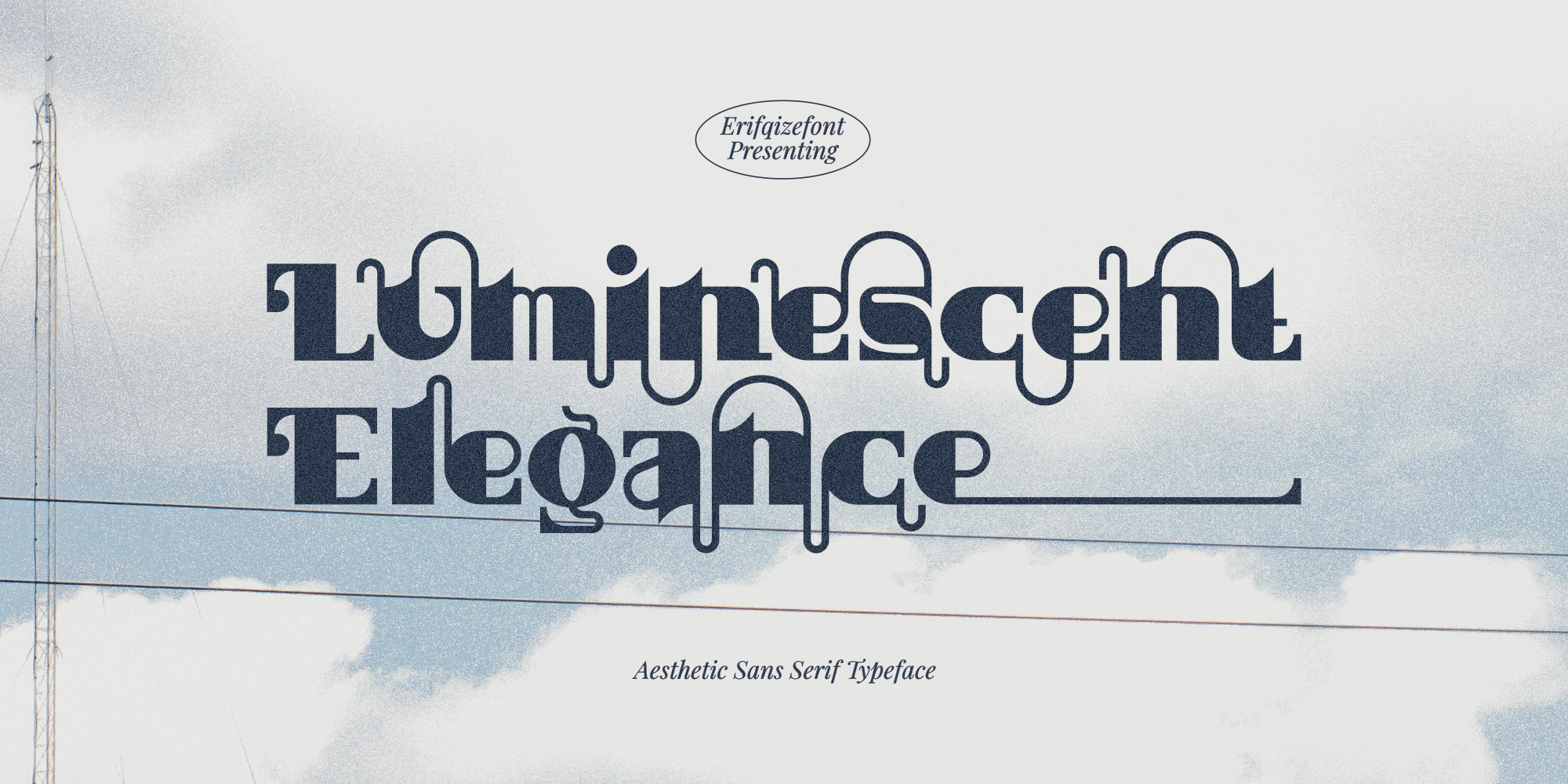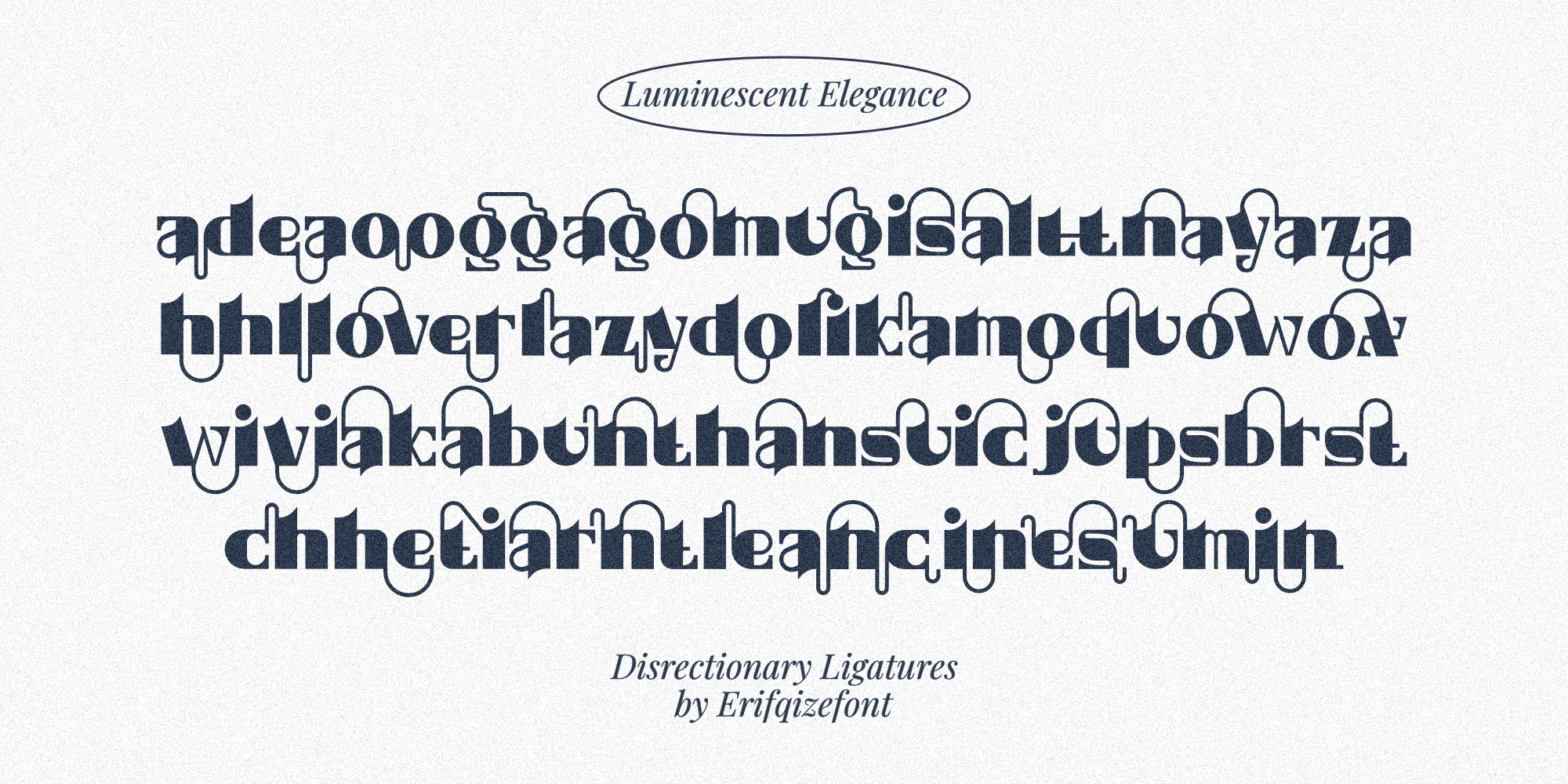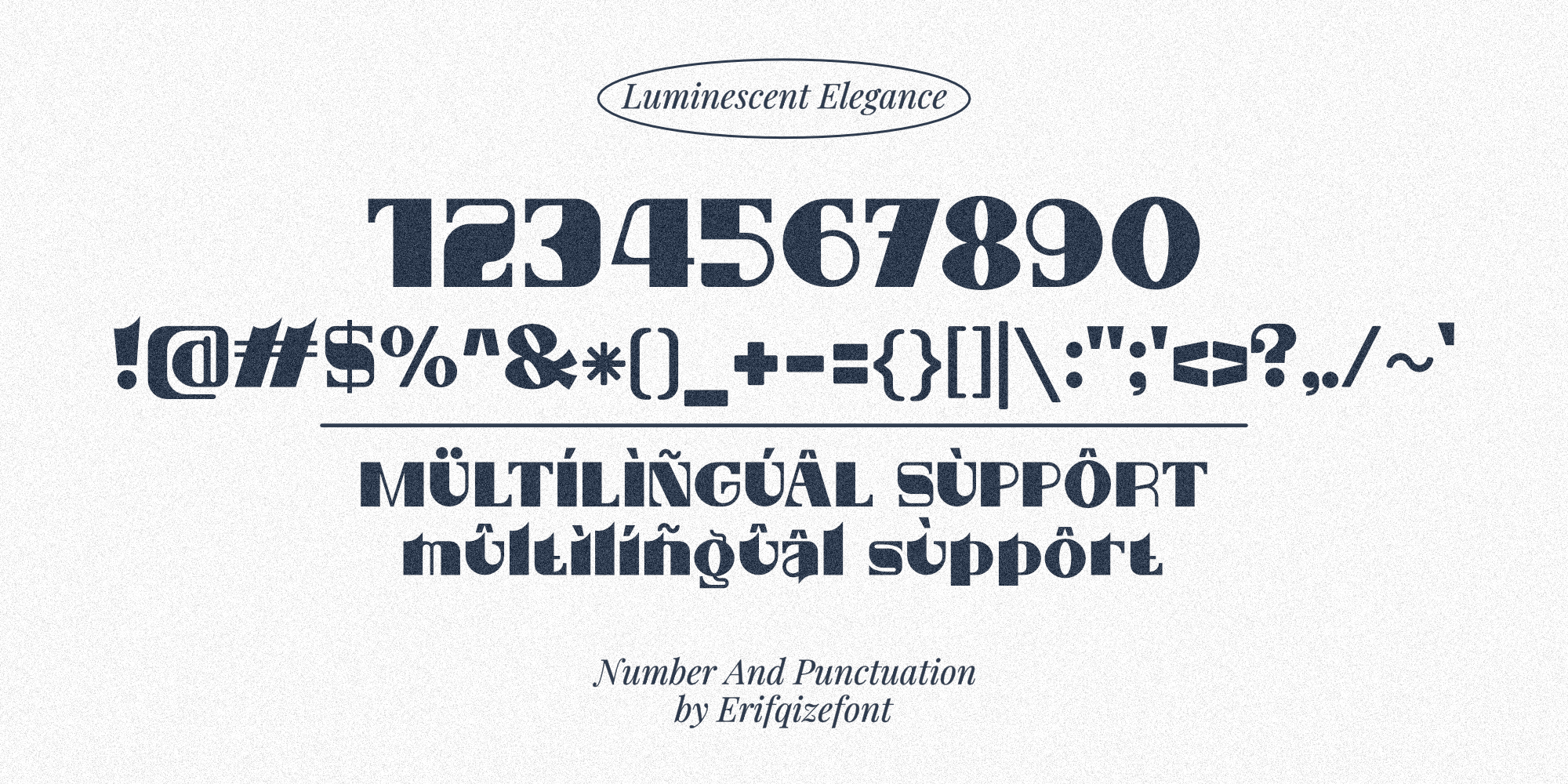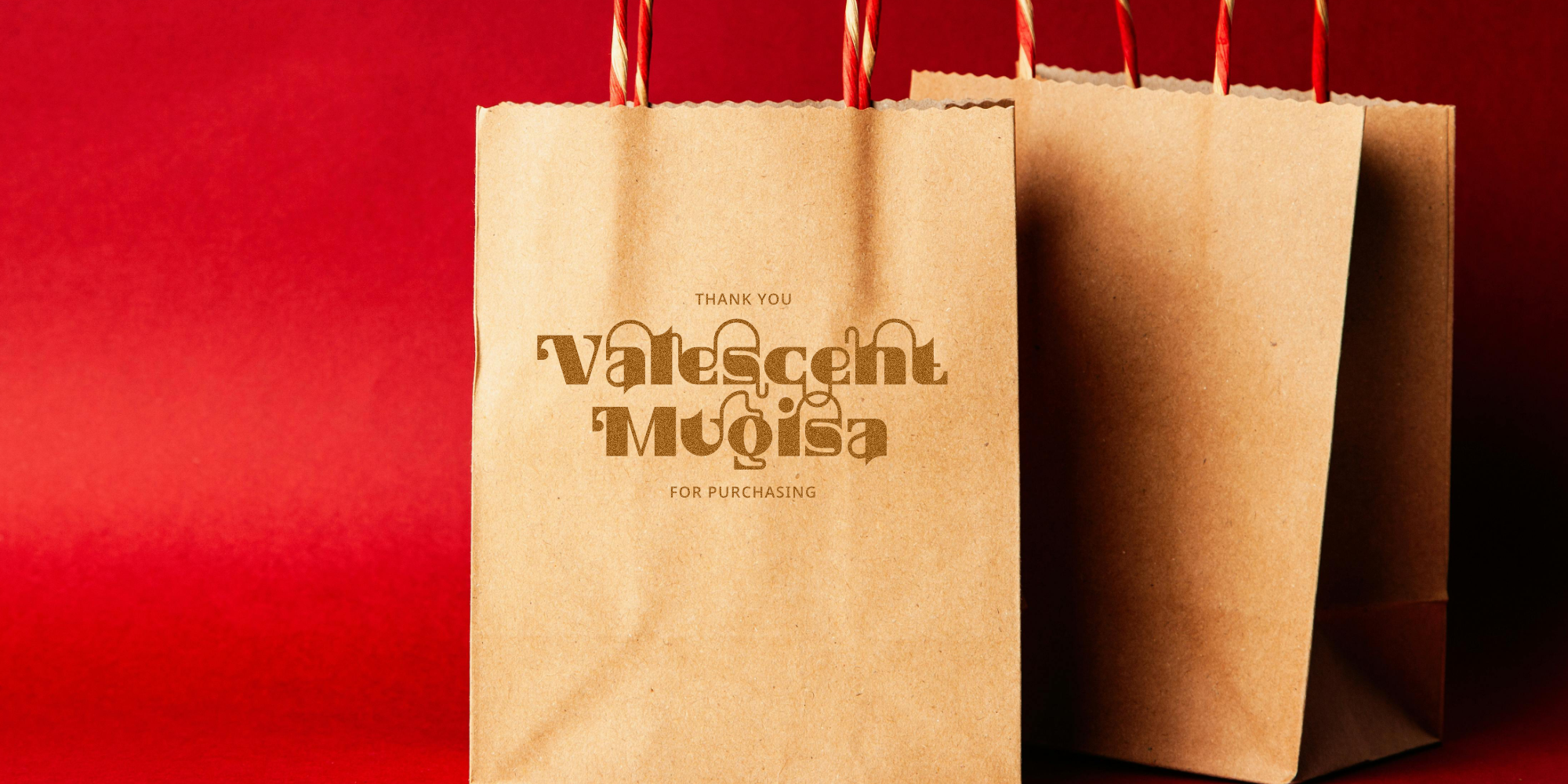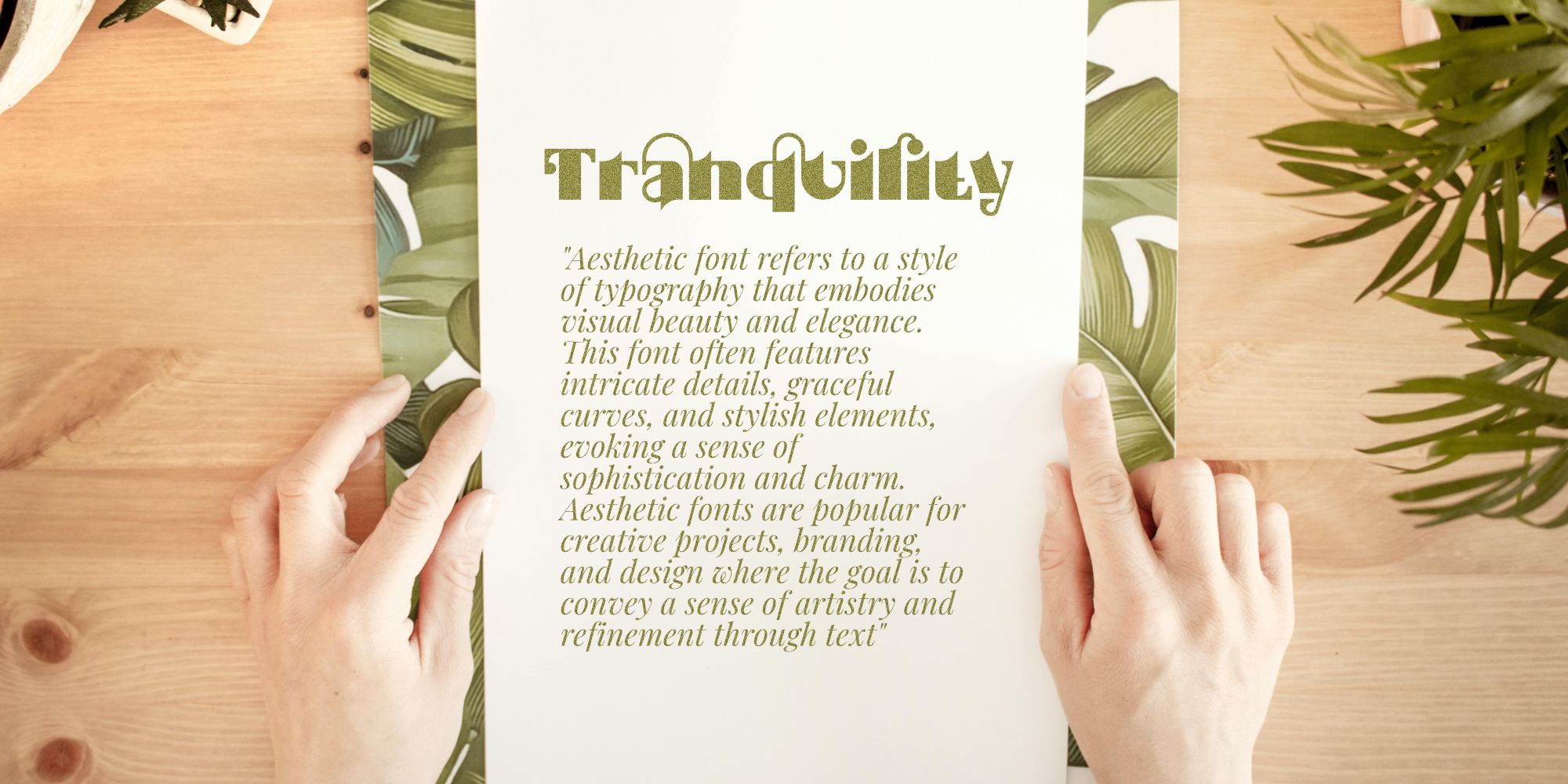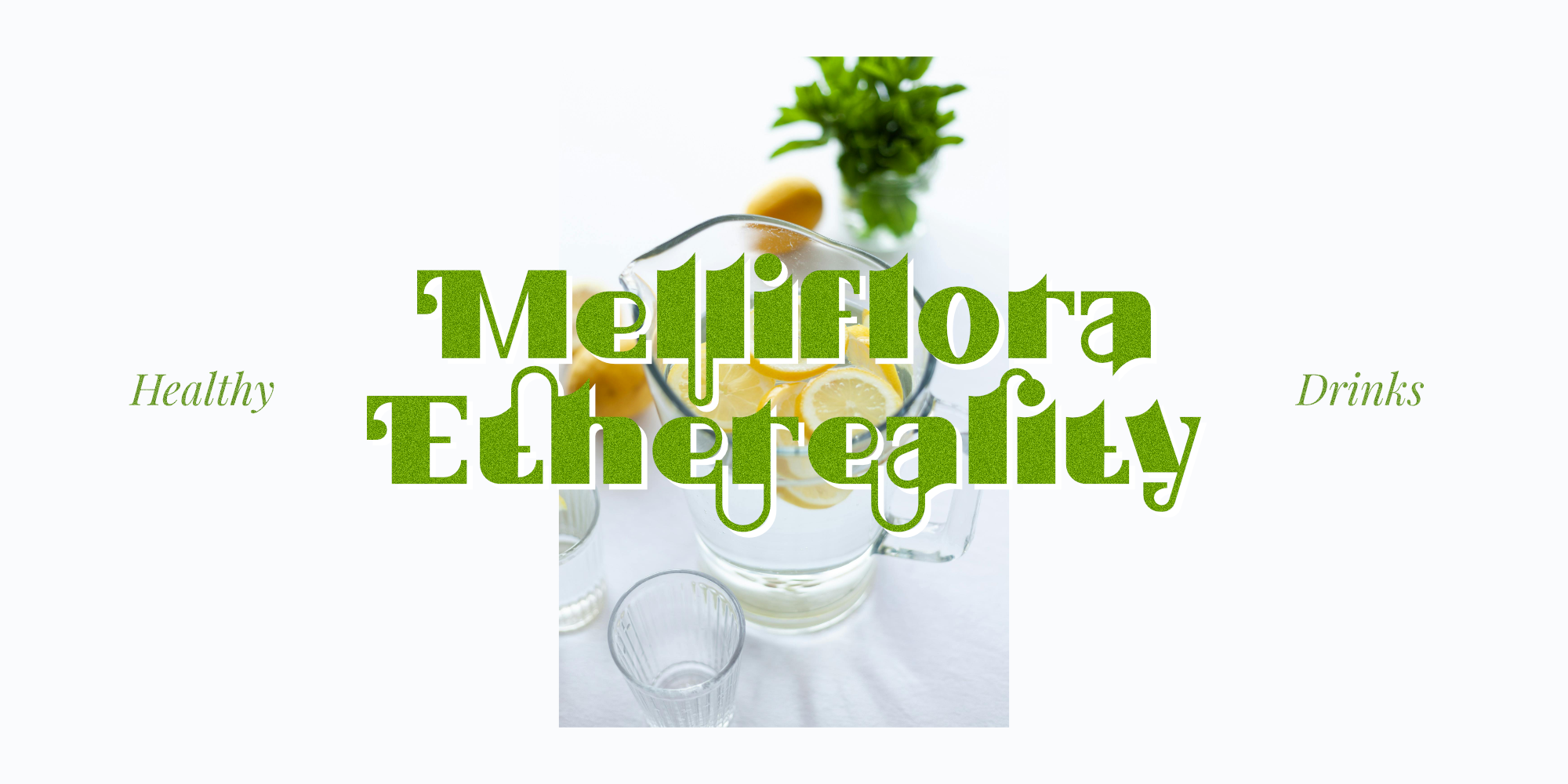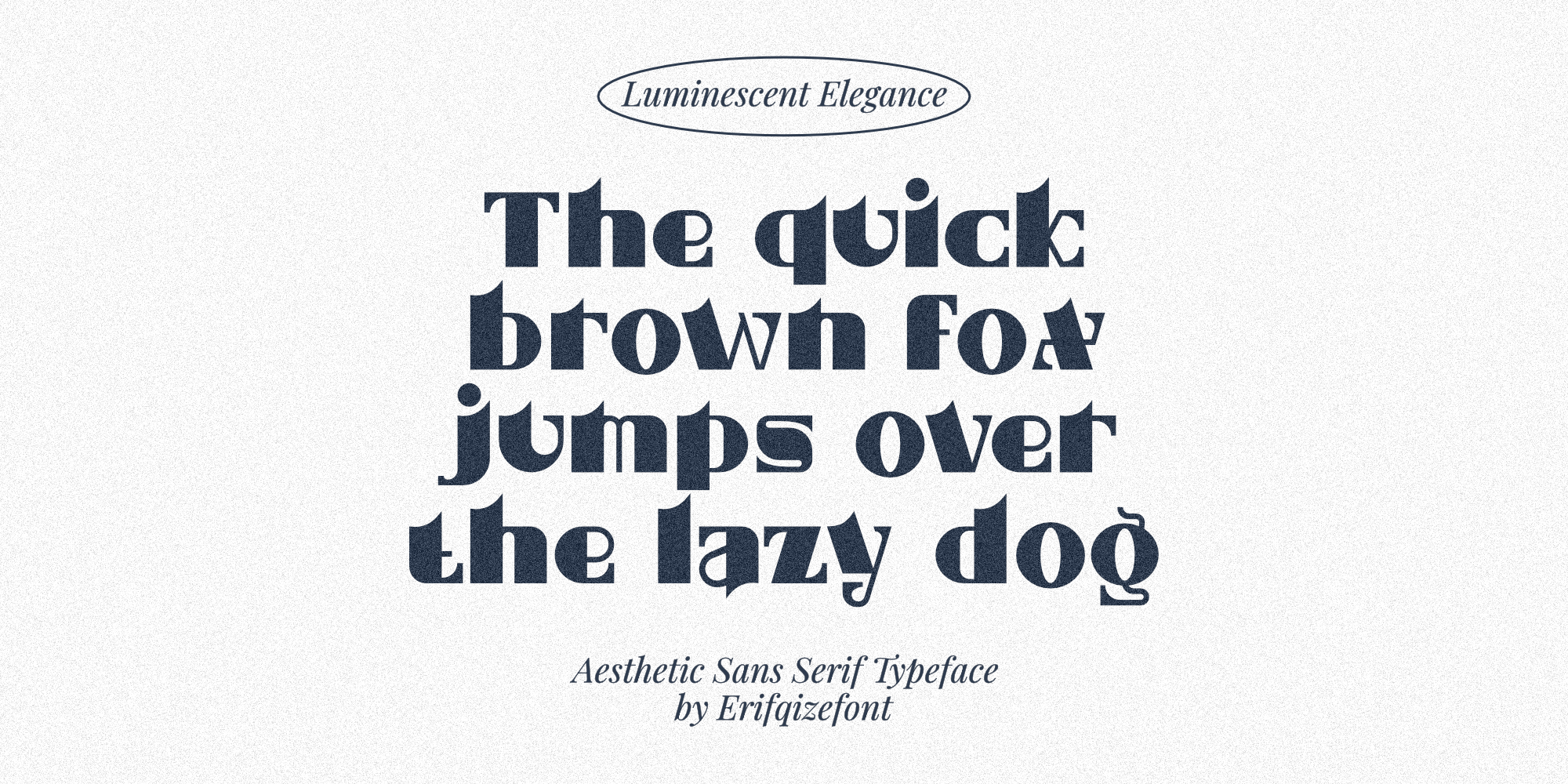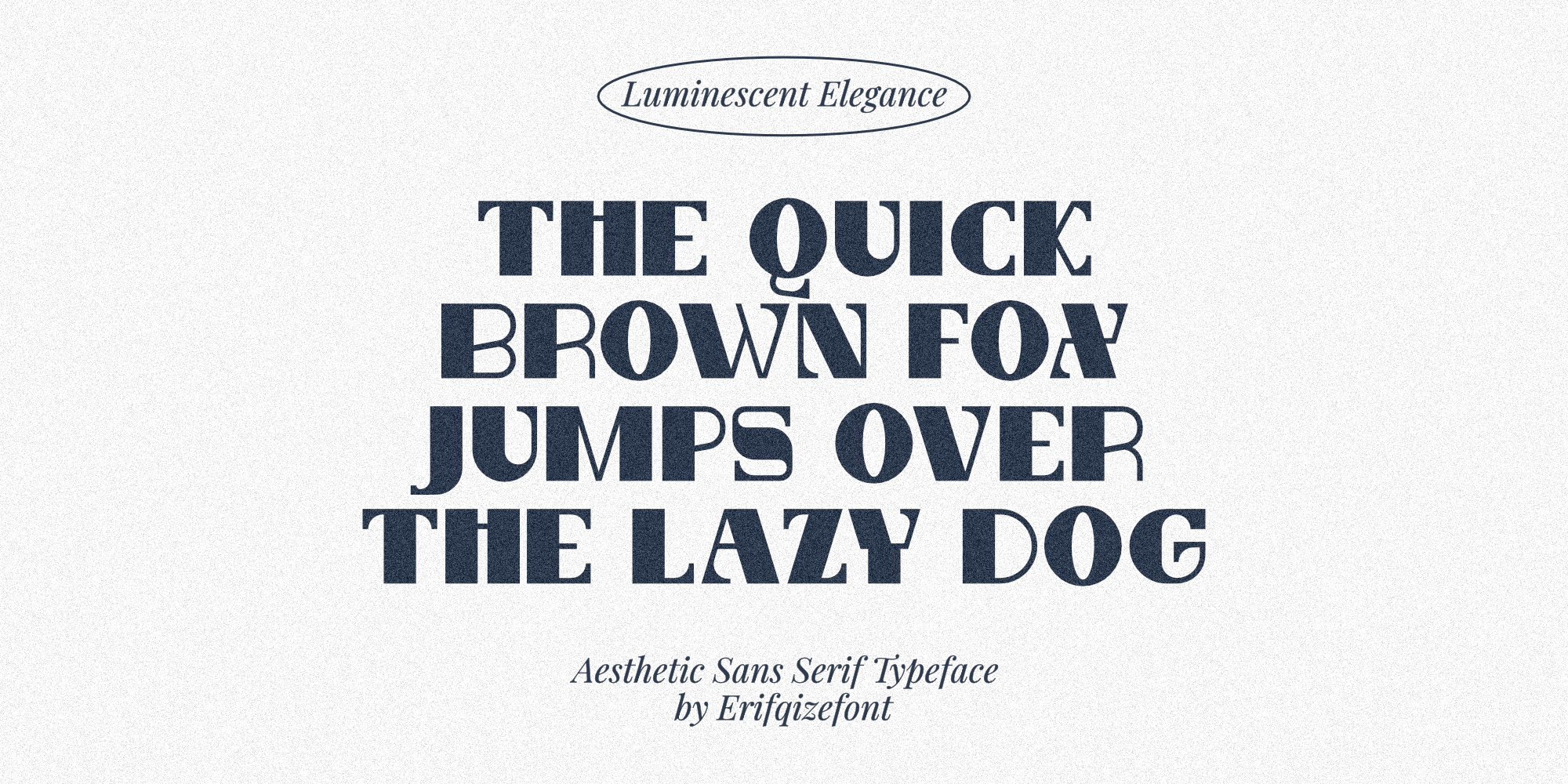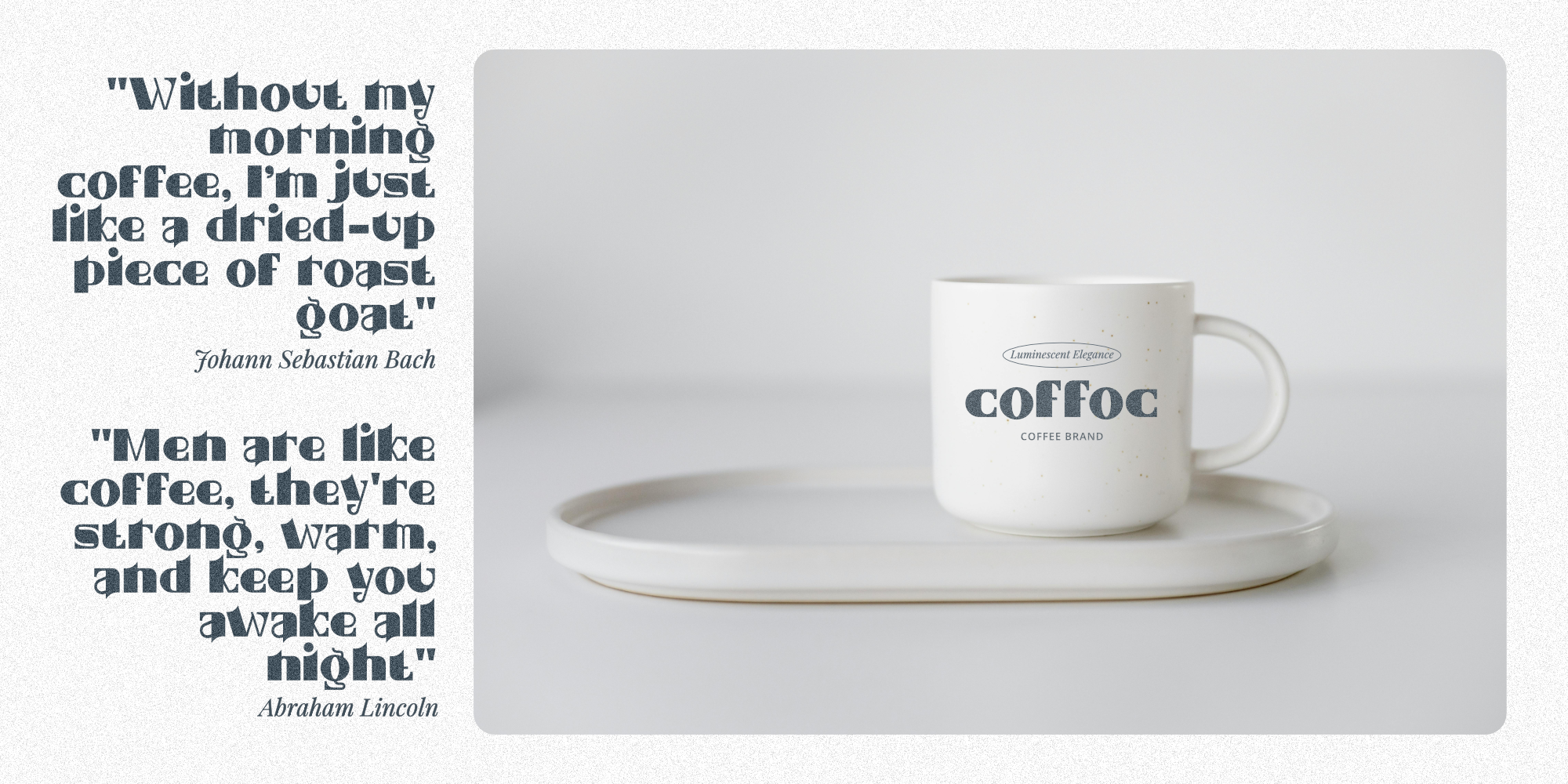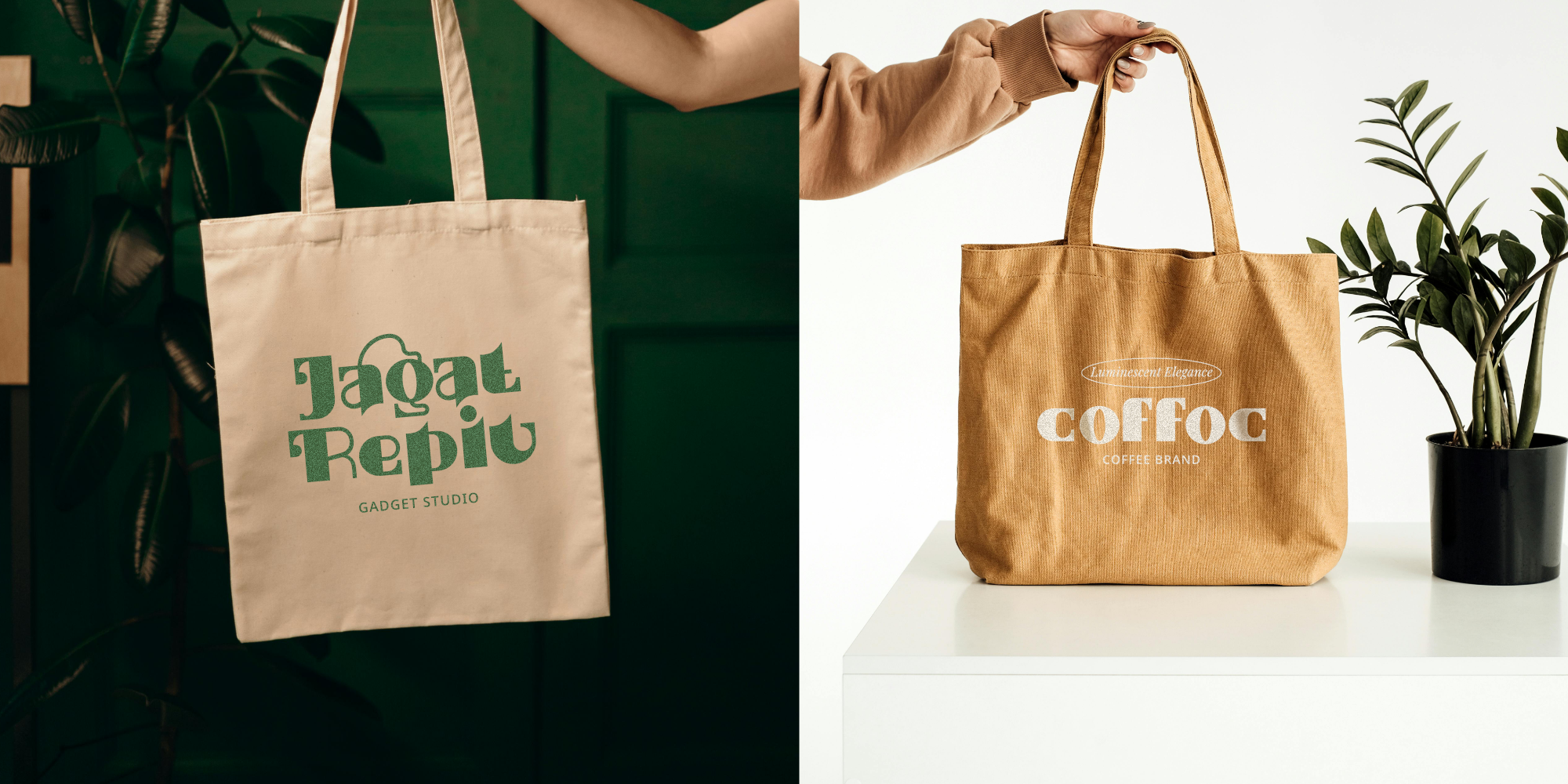
Luminescent Elegance
Luminescent Elegance is a modern, elegant, and aesthetic sans-serif font designed to bring a refined touch to your creative projects. Perfectly suited for advertising, branding, logotypes, packaging, titles, headlines, and editorial design, this font combines sophistication with versatility.
Crafted with numerous alternative characters and natural ligatures, Luminescent Elegance offers endless possibilities for creating beautiful, classy typography. Built with OpenType features, it ensures a seamless and professional experience, making your designs look flawless and distinctive.
Let Luminescent Elegance elevate your projects with its timeless beauty and modern sophistication.
Luminescent Elegance – Aesthetic Sans Serif Font
Luminescent Elegance is a modern, elegant, and aesthetic sans-serif font designed to bring a refined touch to your creative projects. Perfectly suited for advertising, branding, logotypes, packaging, titles, headlines, and editorial design, this font combines sophistication with versatility.